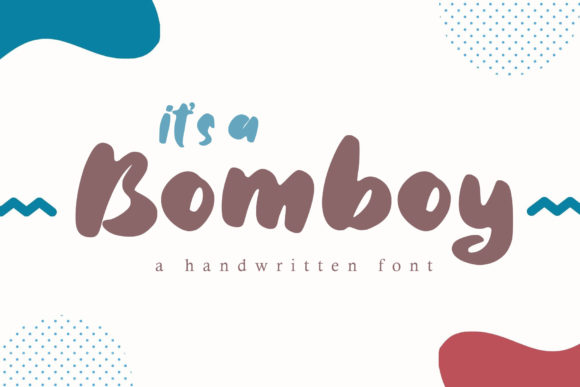
The Sweet & Jolly Bomboy Font: A Designer’s New Best Friend
I’ll never forget the time I was working on a project for a client’s birthday party invitation. I had the design concept all sorted out, but I was stuck on finding the perfect font. I wanted something that would convey a sense of warmth, friendliness, and playfulness. That’s when I stumbled upon the Bomboy font. It was love at first sight! 💕
As I started experimenting with Bomboy, I realized that it was more than just a pretty font. It had personality, charm, and a unique character that made my design pop. In this article, I’ll share my honest review of Bomboy, provide a practical guide on how to use it, and explore similar fonts that you might enjoy.
An Honest Review of Bomboy Font
What I Love About Bomboy ✨
• 💖 Sweet and jolly vibe that’s perfect for creative projects
• ✅ Thick lettered and handwritten feel that adds warmth to designs
• 🎨 Highly versatile and can be used for various design projects, from invitations to branding
• 🌈 Beautifully crafted with attention to detail and a clear focus on readability
• ⚠️ Limited availability of stylistic alternates, which might limit creative experimentation
• 🤔 Can be a bit too bold for very small font sizes or detailed designs
The Backstory of Bomboy Font
Bomboy font was designed with the intention of creating a warm and inviting typeface that would bring joy to designers and readers alike. The designer, inspired by the beauty of handwritten letters, aimed to craft a font that would be both elegant and approachable. With its sweet and jolly vibe, Bomboy has become a popular choice among designers and crafters.
Q: What type of projects is Bomboy font best suited for?
A: Bomboy font is highly versatile and can be used for various design projects, from invitations and greeting cards to branding and packaging.